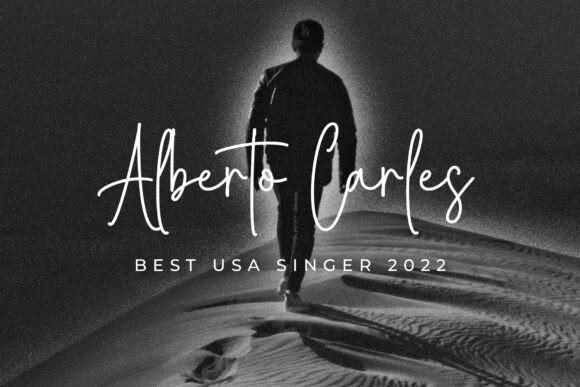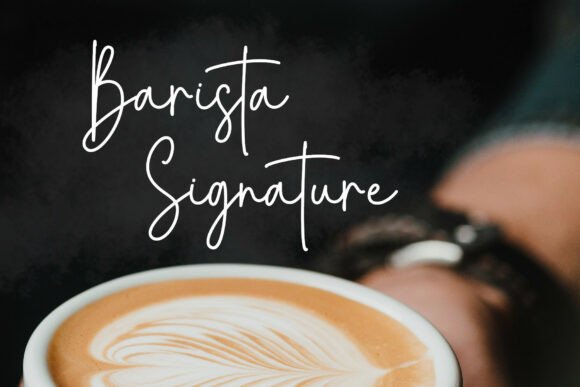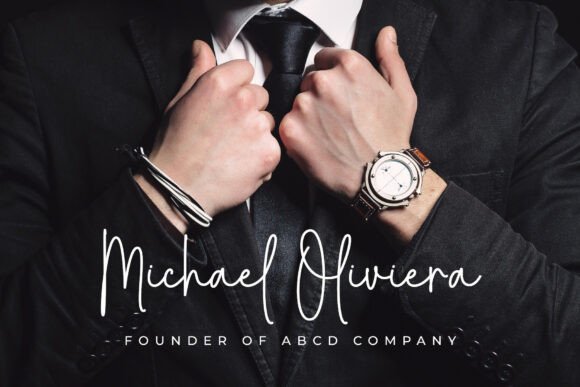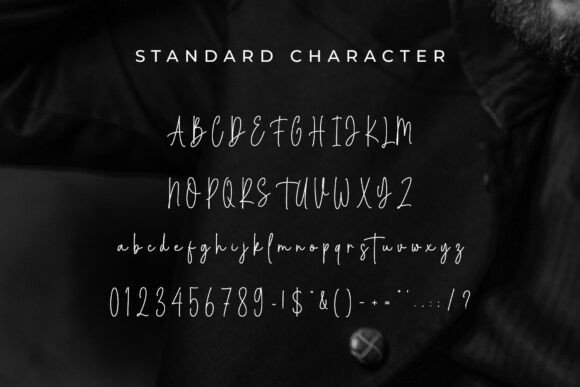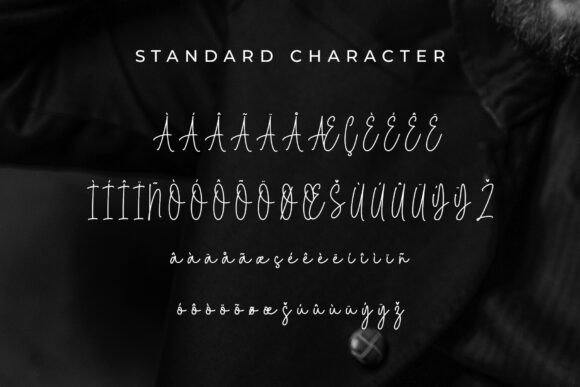
Meet Your New Signature Script: Fanstedam Font
Have you ever been stuck in front of your computer, staring at a blank page, trying to come up with the perfect design concept for a client? It’s a moment every designer knows all too well. But what if you had a secret tool to give your designs that extra oomph? Enter Fanstedam Signature Script, a stunning monoline handwritten font that’s about to become your new go-to.
Designed to add a personal touch to your work, Fanstedam Font is perfect for wedding invitations, logo designs, and contemporary branding projects. Its smooth strokes and natural handwritten feel strike a beautiful balance between professional and approachable, making it a valuable addition to any designer’s toolkit.
Fansteadam Font Key Features
- Unique Characteristics: Distinctive geometric shapes and rounded edges, giving it a modern and elegant feel
- Language Support: Includes support for Latin, Cyrillic, and Greek alphabets, making it suitable for global applications
- Kerning and Ligatures: Advanced kerning and ligature support for precise text rendering
Designer Review: Fanstedam Font
As a designer, I’ve had the chance to work with a wide range of fonts, and Fanstedam Font is definitely one of the more interesting ones I’ve come across. ✨ One of the things that works well with Fanstedam is its unique, hand-drawn aesthetic. It’s perfect for designs that need a touch of whimsy and personality. The font’s quirky flourishes add a lot of visual interest, making it stand out in a crowded design landscape.
Another aspect of Fanstedam that I appreciate is its versatility. ✨ It’s available in a range of weights and styles, from light and airy to bold and dramatic. This makes it easy to use in a variety of design contexts, from logos and branding to typography-heavy layouts.
However, there are some limitations to consider. ⚠️ For one, Fanstedam can be a bit difficult to read in smaller sizes. The font’s intricate details can become lost at smaller point sizes, making it harder to decipher the text. Additionally, the font’s quirks can sometimes feel overwhelming or distracting, particularly in designs where subtlety is key.
Design Considerations
- Use Fanstedam for designs that need a touch of personality and whimsy.
- Choose a weight or style that complements your design’s overall aesthetic.
- Avoid using Fanstedam in designs where readability is a top priority.
Introduction to Fanstedam Font
The Fanstedam Font is perfect for:
- Branding and logos.
- Quotes and typography art.
Alternatives to Fanstedam Font
Fedra Serif
Fedra Serif is a high-quality serif font ideal for body text, editorial content, and formal documents. It is a more traditional choice compared to Fanstedam Font, which is more playful and modern. Fedra Serif is suitable for projects that require a professional and classic look.
Comparison: Fedra Serif is more formal and traditional, whereas Fanstedam Font is more casual and creative.
Playfair Display is an elegant and luxurious serif font perfect for titles, headings, and upscale branding. It is a more sophisticated alternative to Fanstedam Font, which is more versatile and adaptable. Playfair Display is ideal for projects that require a touch of sophistication and high-end feel.
Comparison: Playfair Display is more formal and luxurious, whereas Fanstedam Font is more playful and versatile.
Merriweather is a classic and elegant serif font suitable for body text, editorial content, and formal documents. It is a more traditional choice compared to Fanstedam Font, which is more modern and experimental. Merriweather is ideal for projects that require a classic and timeless look.